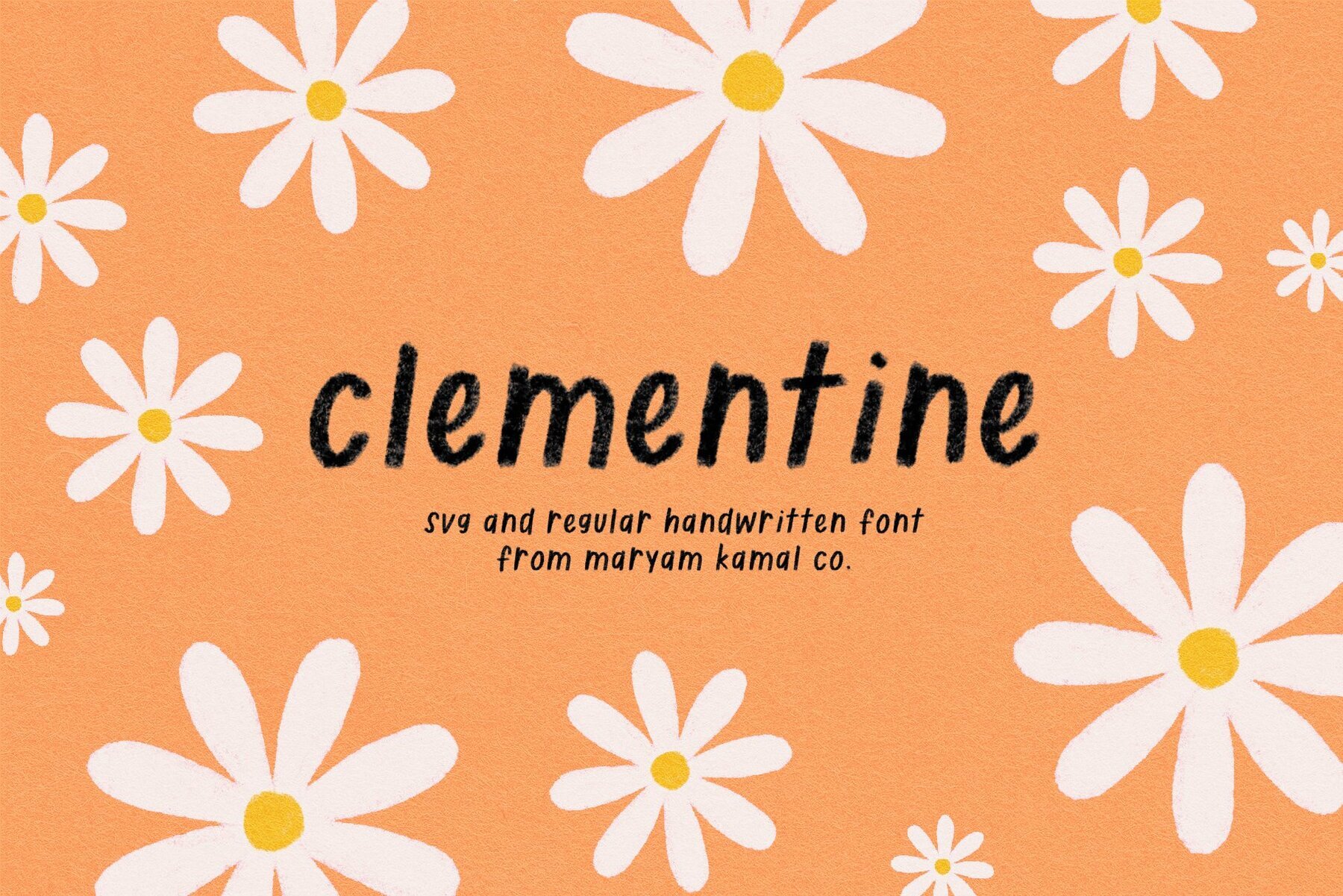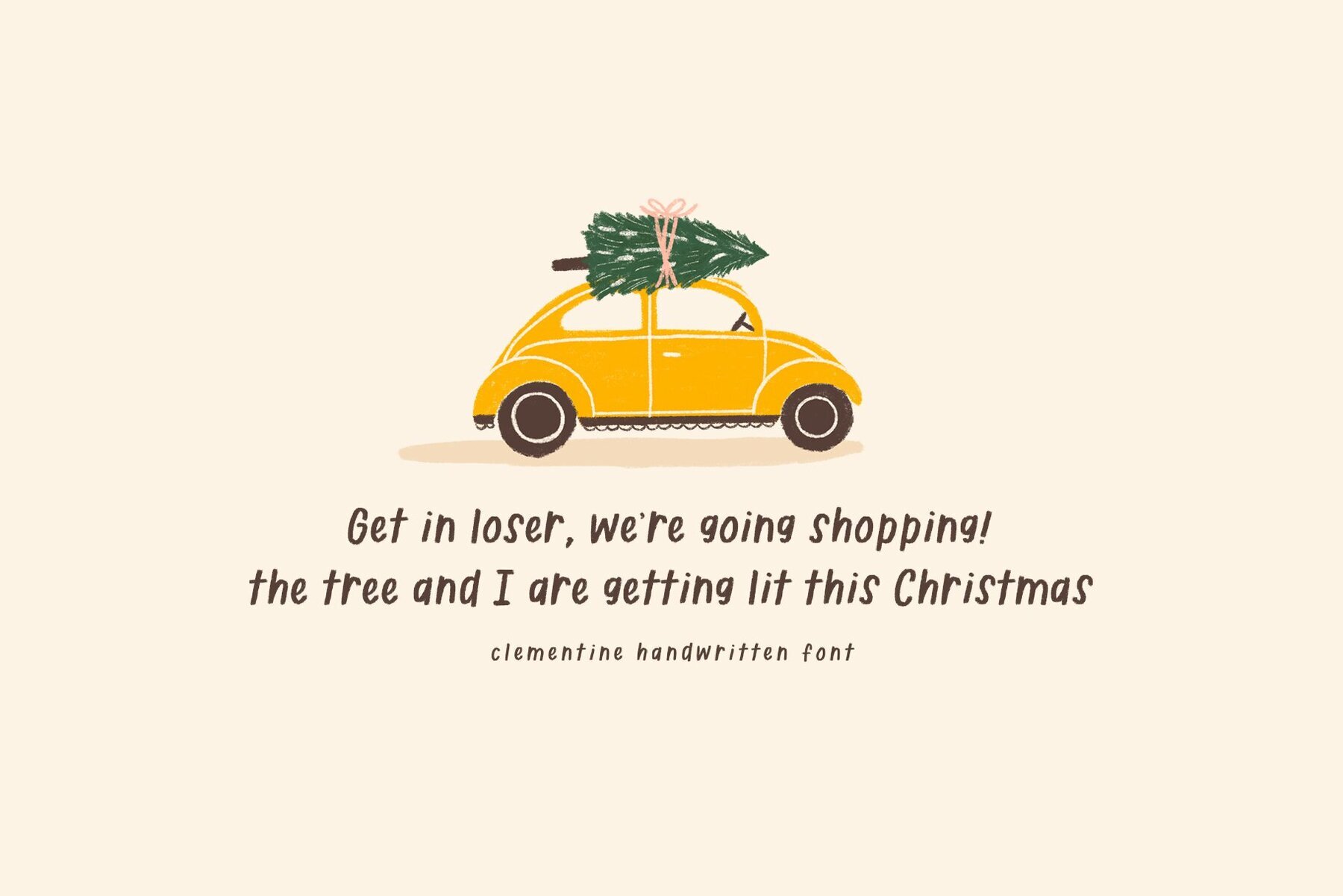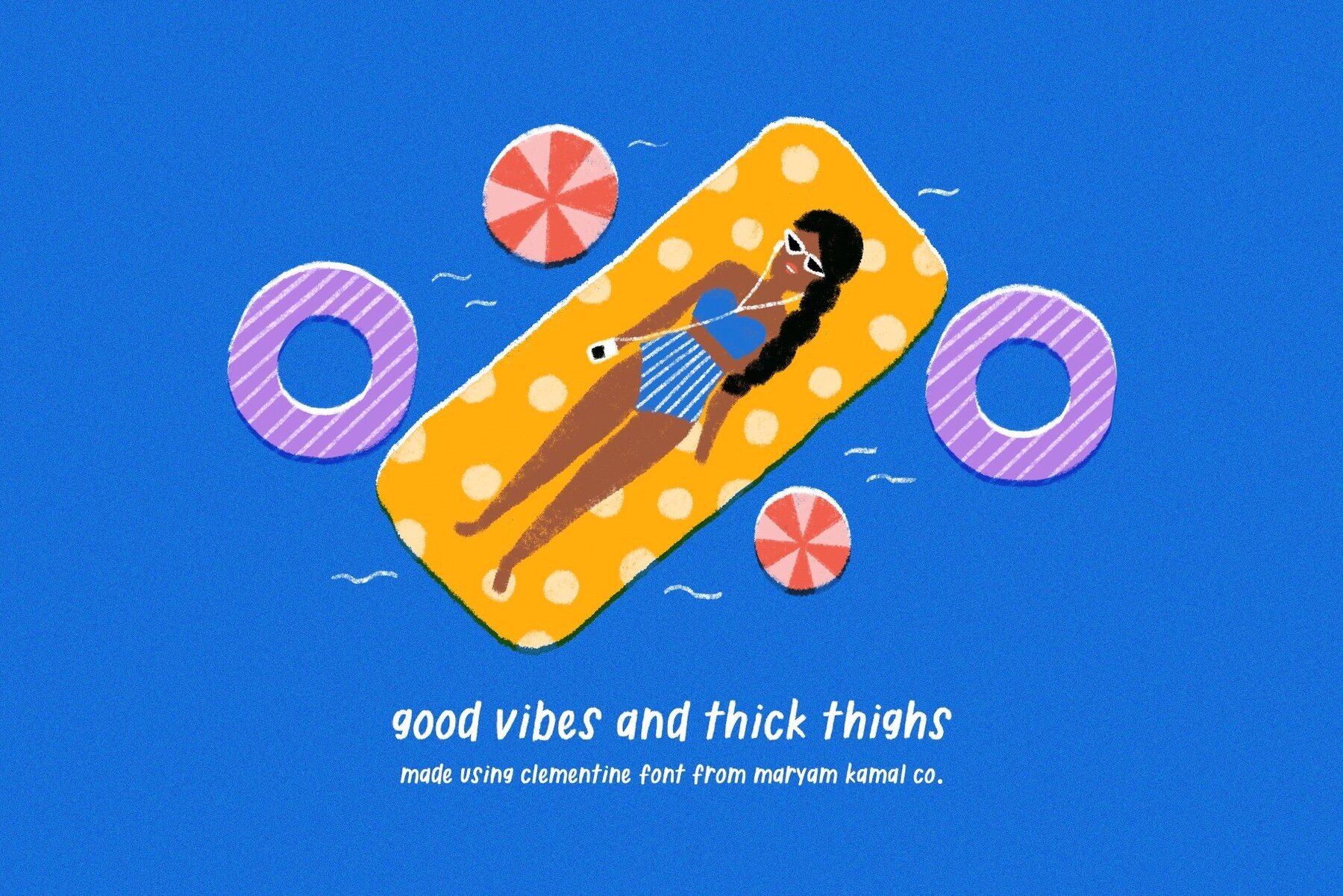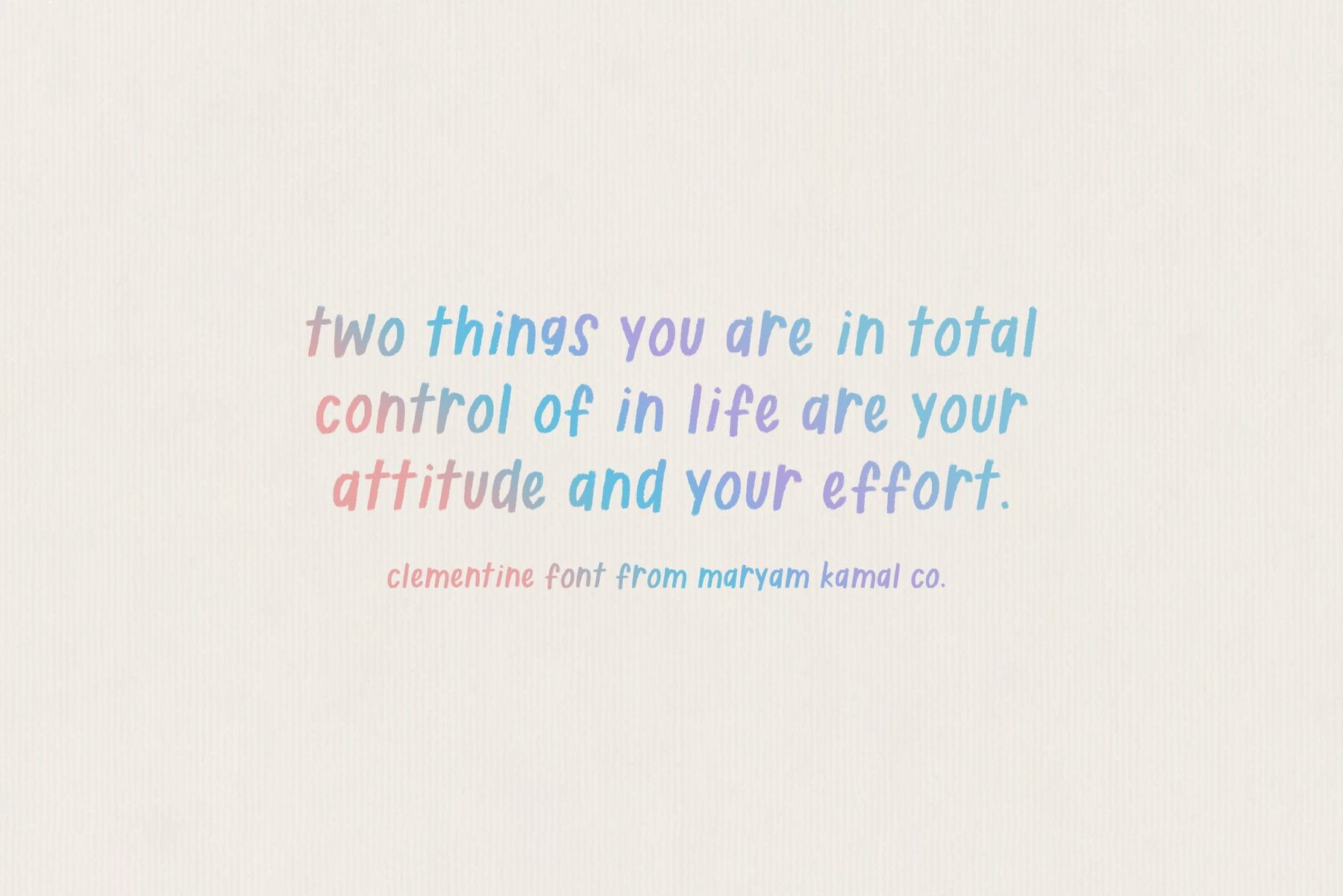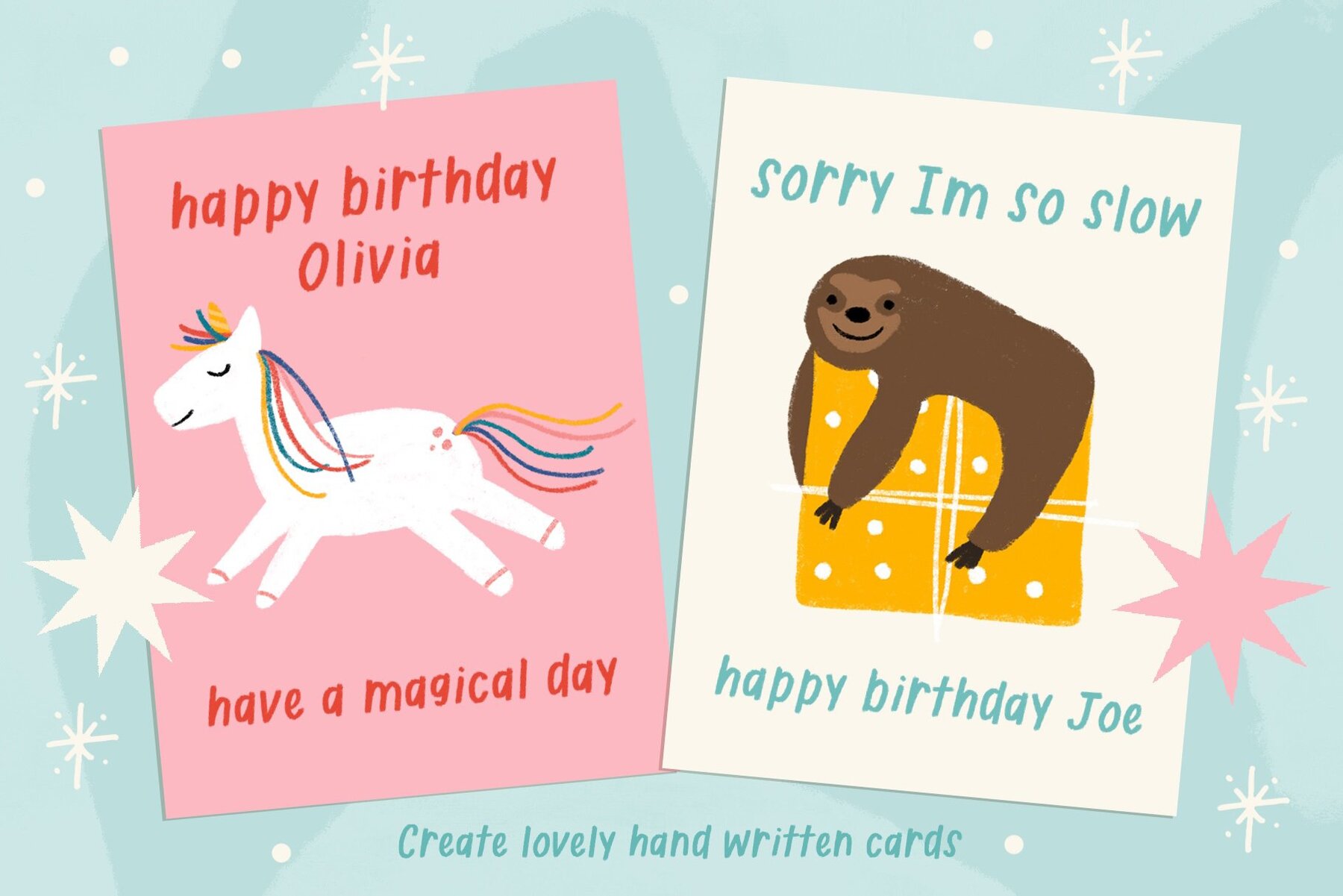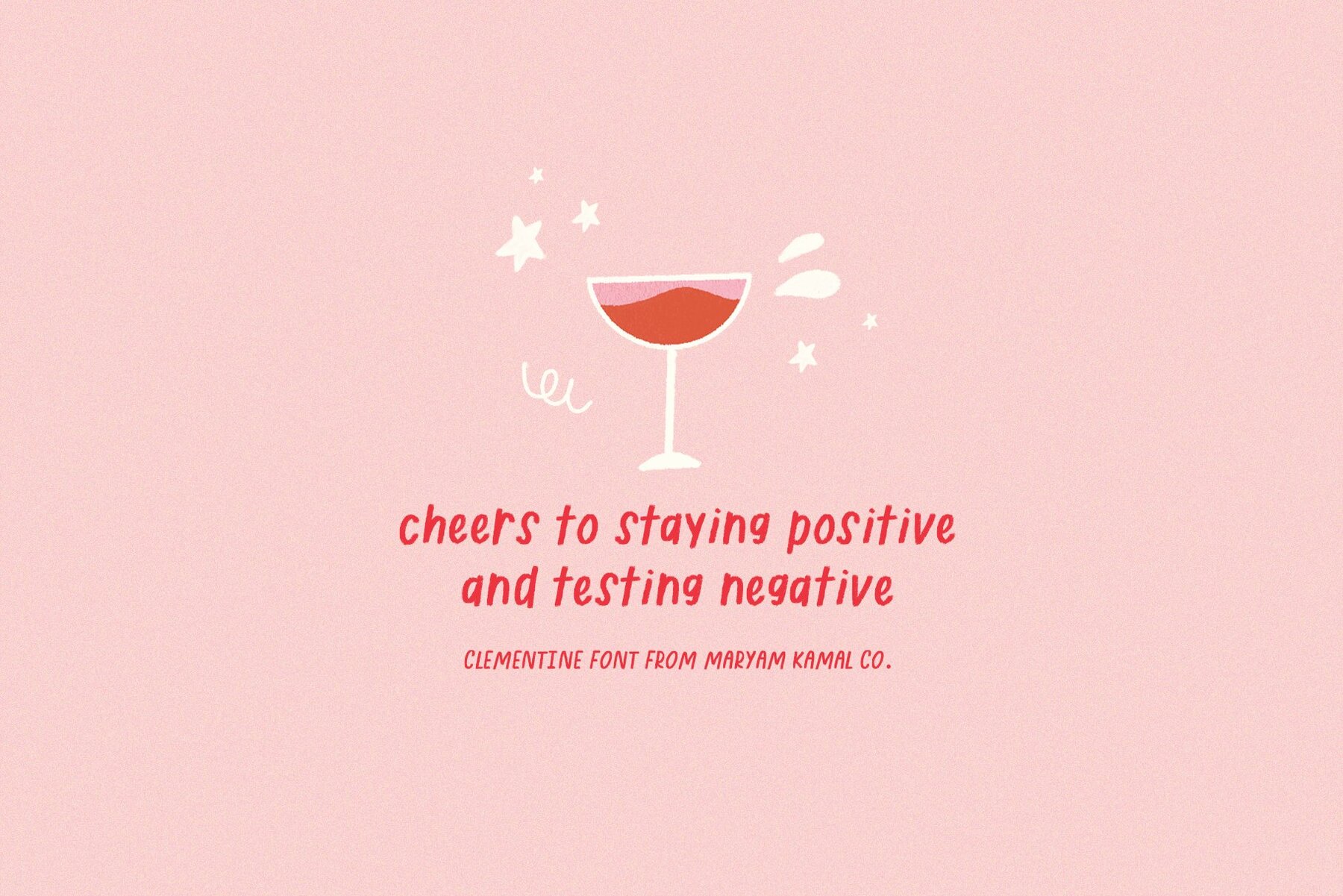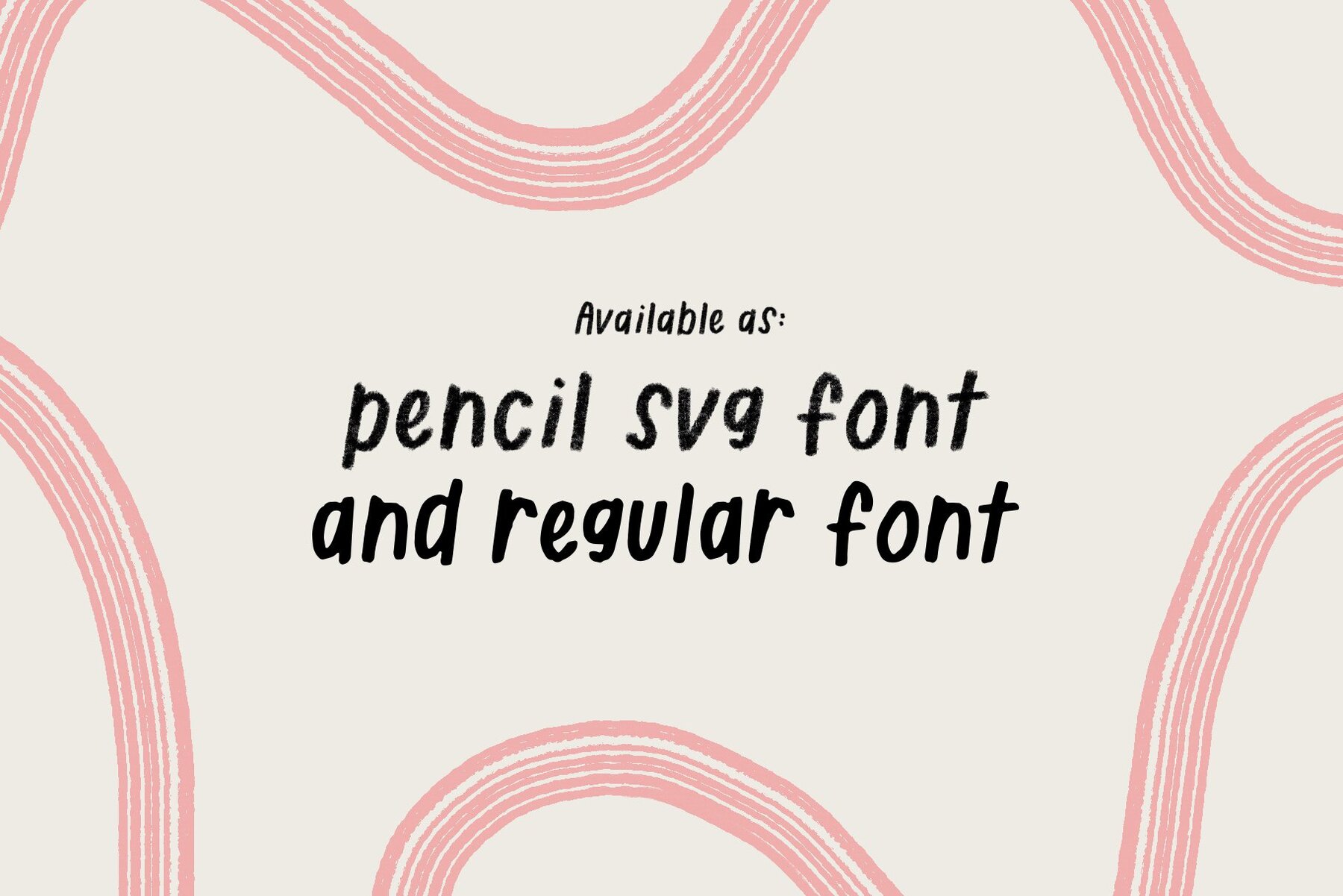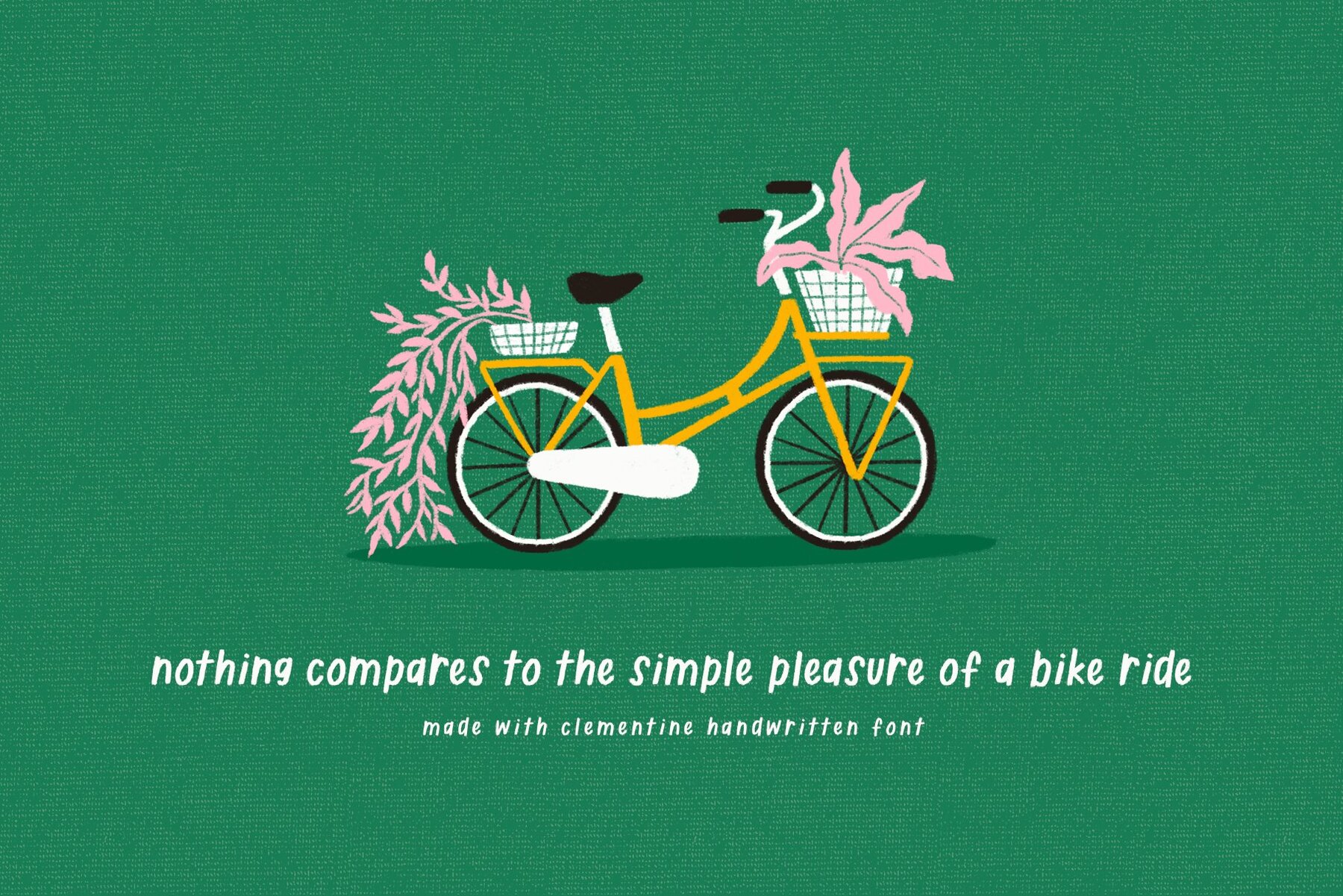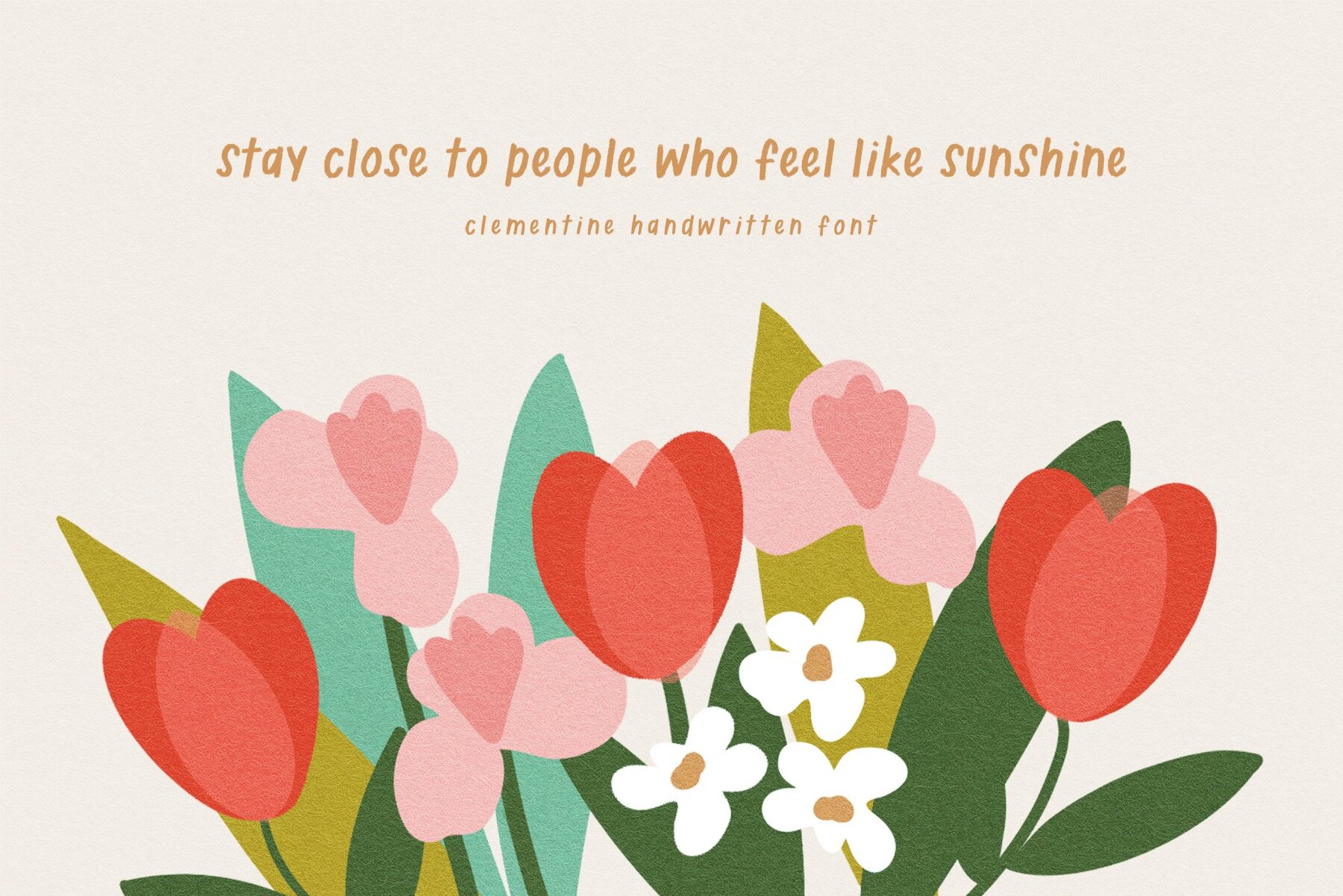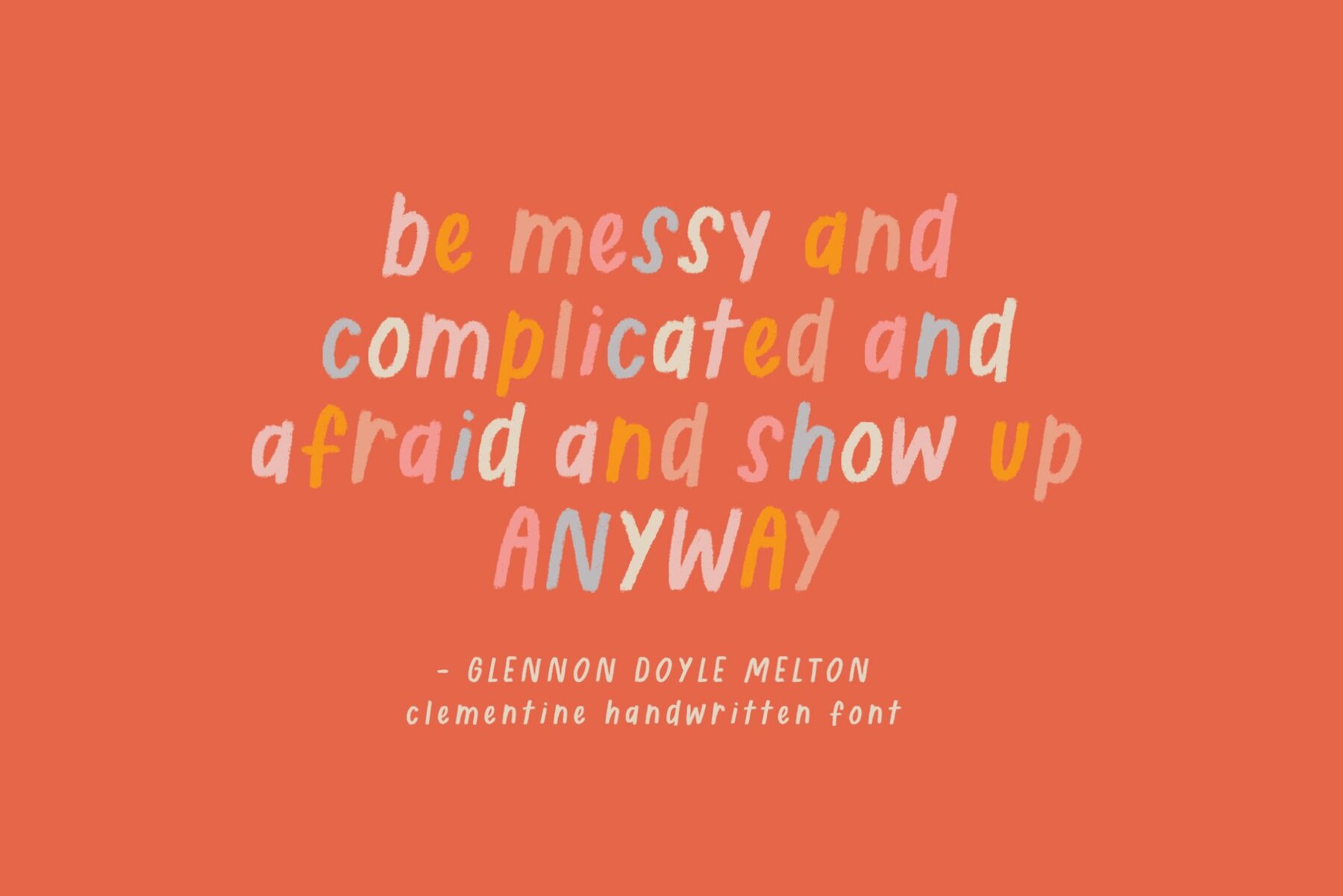
Clementine SVG Font
The Clementine Font brings a delightful and natural handwritten charm to your designs. Created with an adorable and carefree aesthetic, this SVG font offers a unique pencil-like texture, alongside a solid version with rough edges. Designed to embody raw, authentic, and carefree elements, Clementine is perfect for the holiday season and beyond. Use it to craft handwritten greeting cards, personalized notes, quotes, social media graphics, and birthday cards. Experiment with letter spacing for dynamic results. The font is also striking in all capital letters. Pair it with simple, minimalist illustrations to enhance its expressive nature. Please note that SVG fonts require Photoshop CC 2017 or newer, or Illustrator CC 2018 or newer. The regular fonts are supported across most applications.Clementine Font: A Handwritten Touch with Versatile Options
Creative Inspiration
Versatility and Pairing